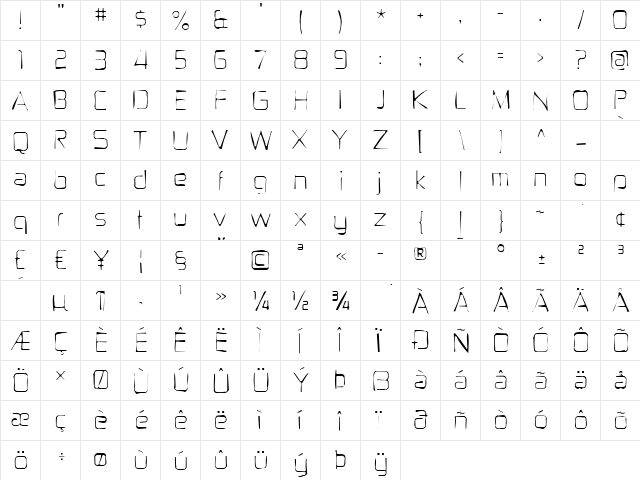
Zekton Gaunt Regular Font Preview
Zekton Gaunt Regular
Design Context for Zekton Gaunt Typeface
Zekton Gaunt takes a measured approach to typography — its balanced proportions and neutral character make it a reliable workhorse for both digital and print work.